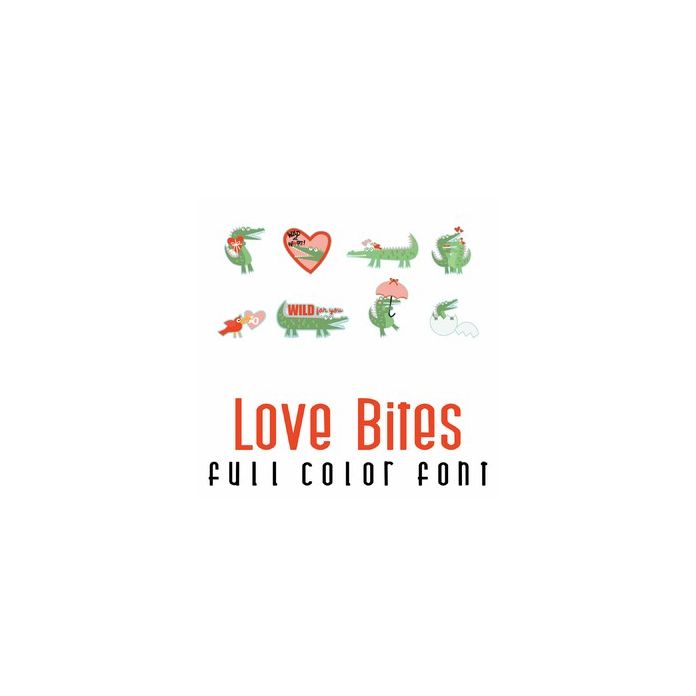
This fun full-color doodlebat font features 26 adorable alligators or crocodiles ready for love and perfect for cards, crafts, gifts, scrapbook pages, planner stickers, and more!